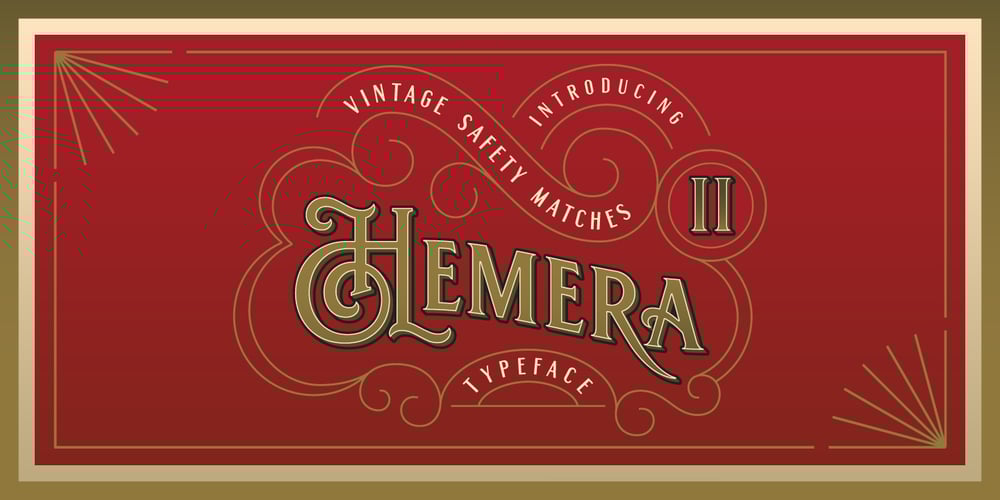
Hemera II Font Family was designed by Abdilah and published by Konstantine Studio. Hemera II contains 1 styles and family package options. To celebrate the milestone of our all time bestseller font called Hemera, After four years now we’re ready to the next level of it. Please welcome Hemera II. A sophisticated vintage victorian era fonts, inspired from the old advertising and classic sign back in circa 1800 – 1900s. Perfectly fit for your vintage vibes and classic touch on any branding works. Logo, badges, label, headline, retro decoration, you name it.